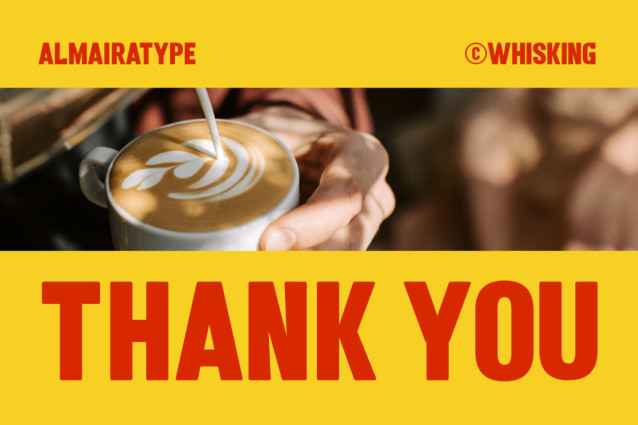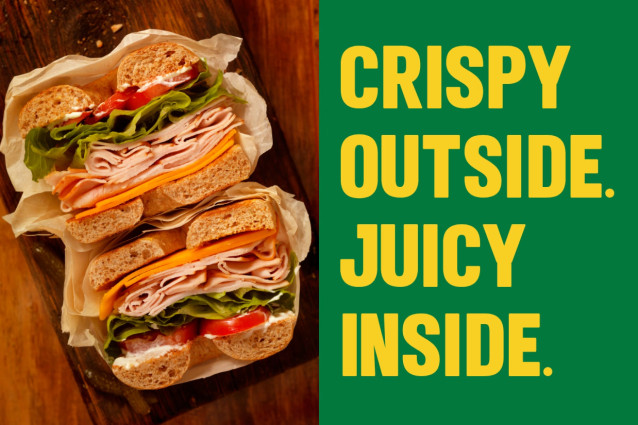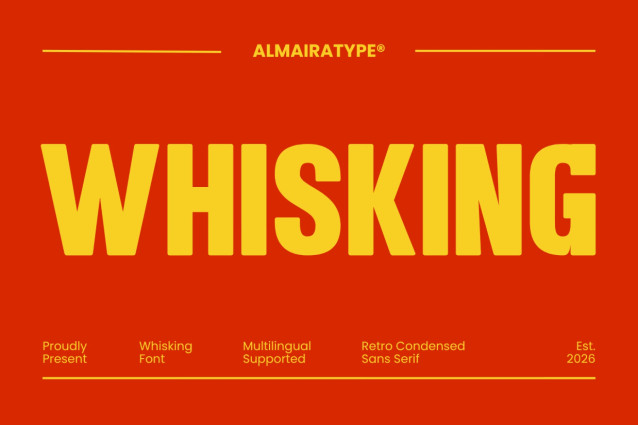
Make a bold, commanding, and delightfully nostalgic statement with Whisking, an ultra-bold tall condensed retro sans serif font engineered for creators who want their headlines to pop with a rich, energetic lifestyle and culinary charm. Meticulously structured with a heavy display weight, tall narrow baselines, and softly rounded corners, this versatile font brings an instant blend of vintage warmth and clean modern commercial professionalism to any creative canvas.
Whether you are an apparel designer launching a fresh streetwear collection, a graphic artist establishing a bold culinary or lifestyle brand, or a high-volume print-on-demand seller optimizing listings for search engine conversions, Whisking delivers unmatched readability and outstanding shelf appeal. For the crafting community and DIY enthusiasts, every single glyph has been technically polished and vector-optimized to ensure a smooth, effortless cutting and weeding experience on digital cutting machines like Cricut and Silhouette. Bring the powerful, compact, and timeless aesthetic of Whisking into your commercial design toolkit today!